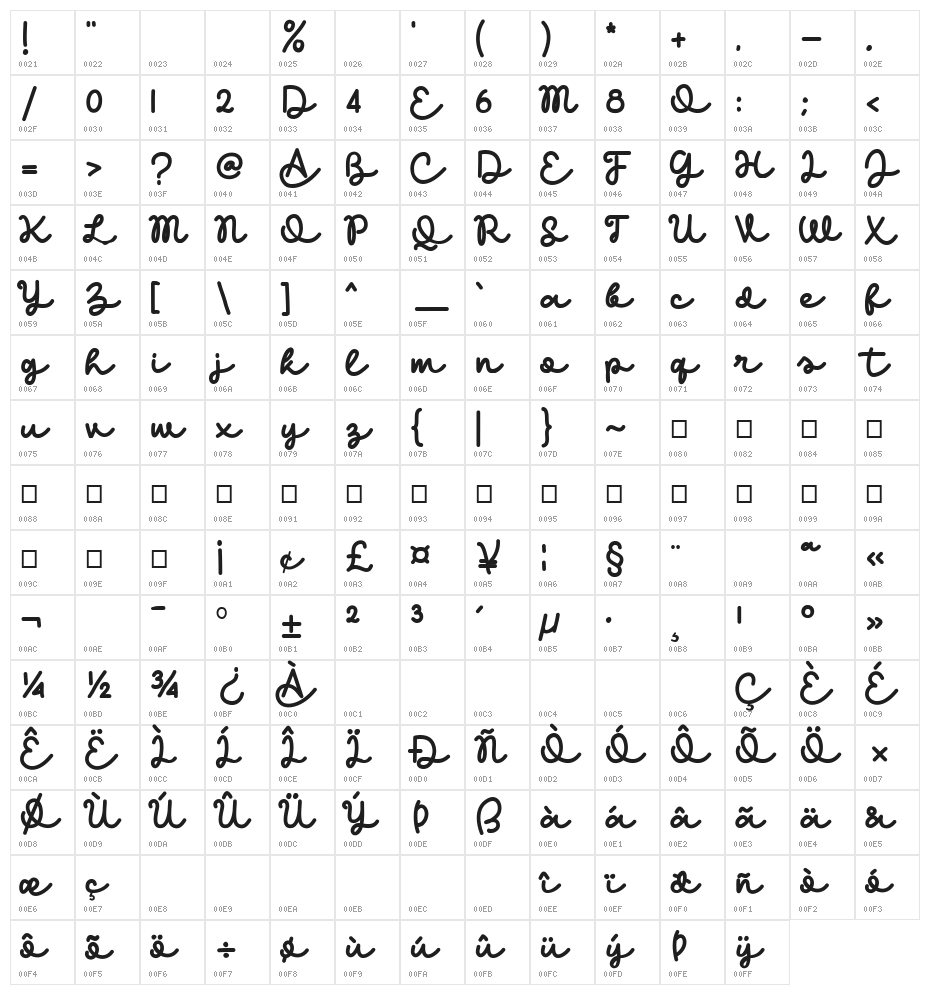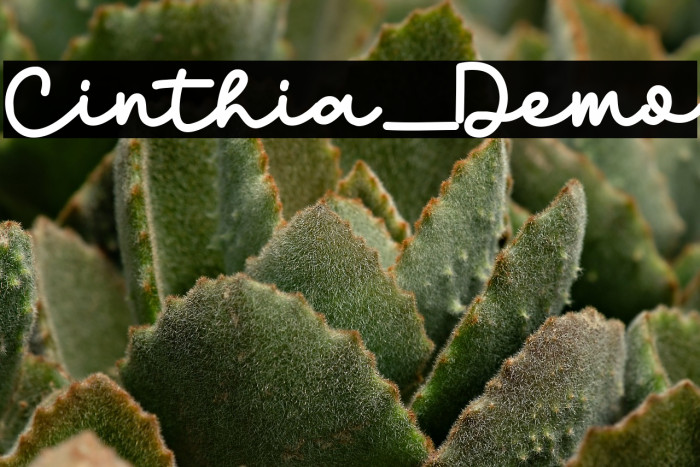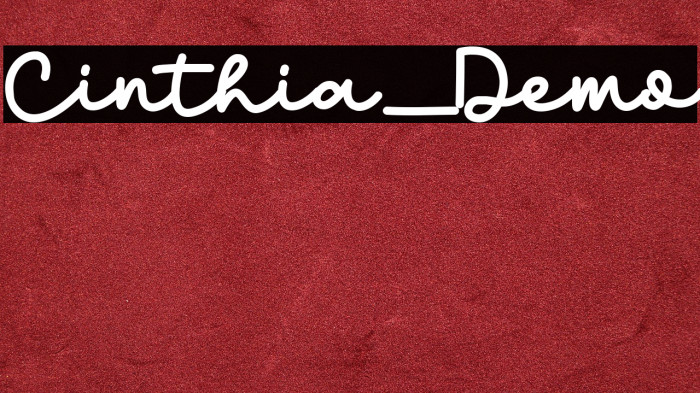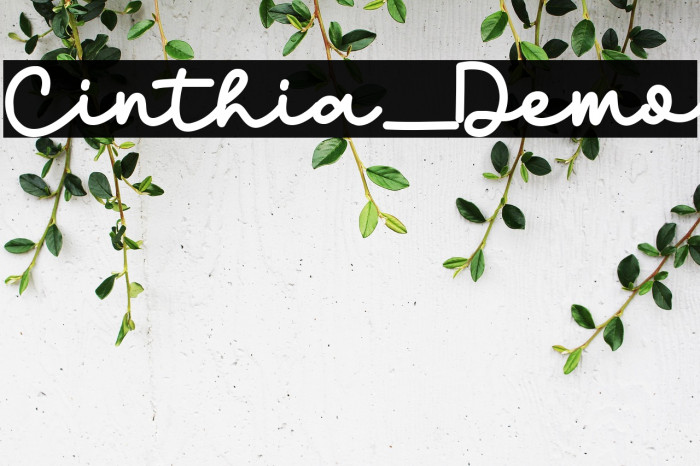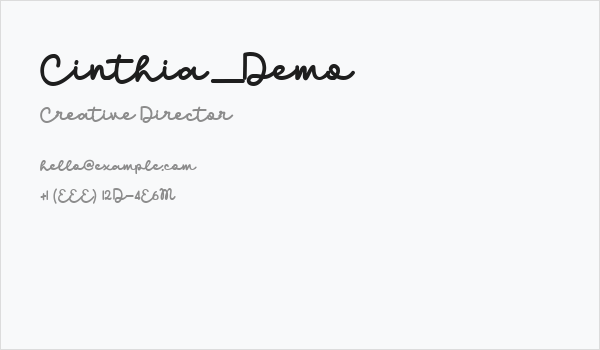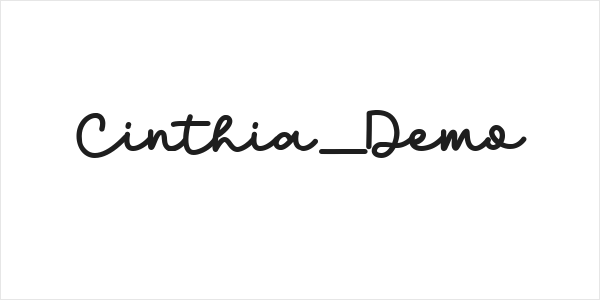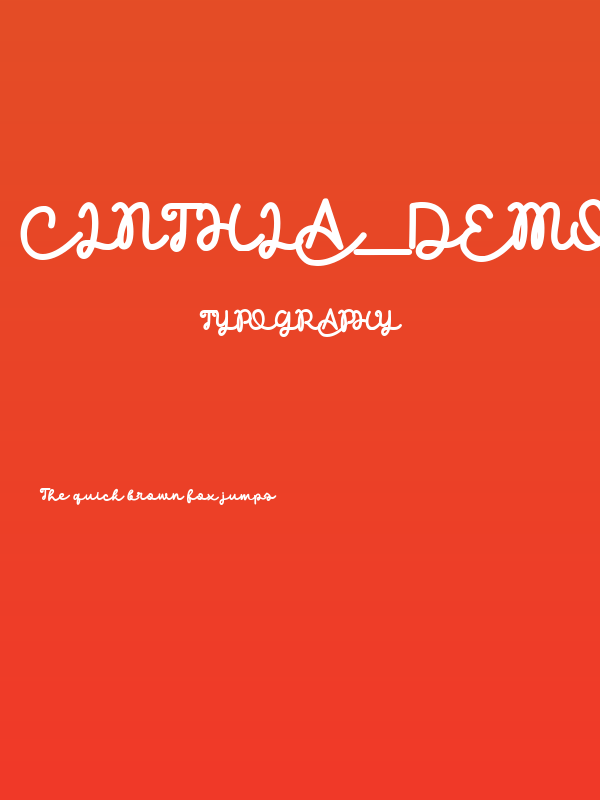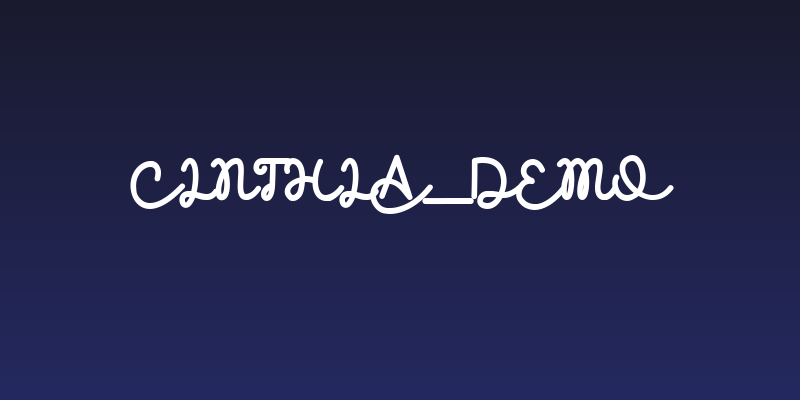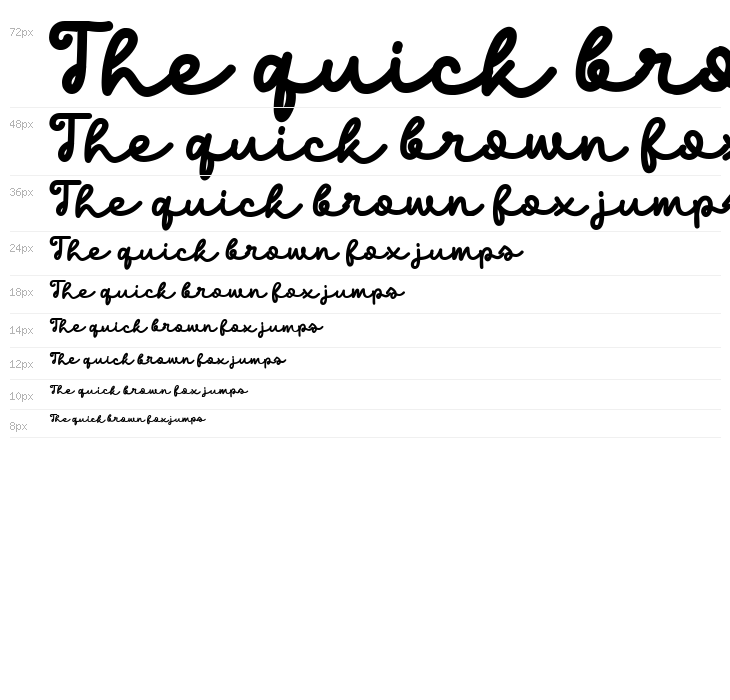
Cinthia_Demo Font
Cinthia_Demo Description
This font features a playful and whimsical script style with a hand-drawn appearance. The characters are interconnected, creating a fluid and continuous flow. The uppercase letters are bold and prominent, while the lowercase letters maintain a consistent style with slightly more subtle curves. The numerals are distinct and maintain the playful aesthetic, with some characters like '2' and '6' having unique, exaggerated loops. Special characters are integrated seamlessly, adding to the font's cohesive look. The overall design is approachable and friendly, making it suitable for creative and informal applications.
| Proposed Projects | Ideal for greeting cards, invitations, playful branding, children's books, and creative social media graphics. |